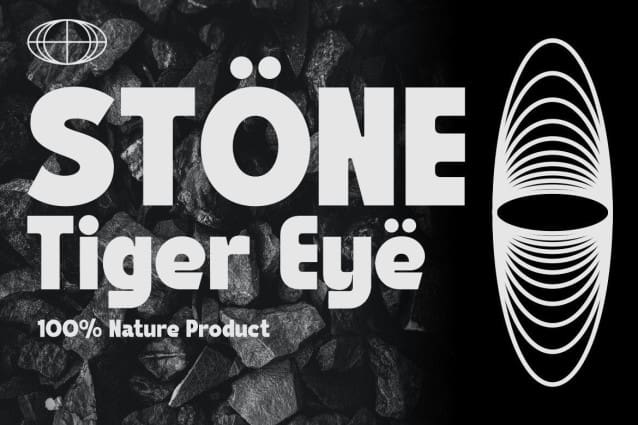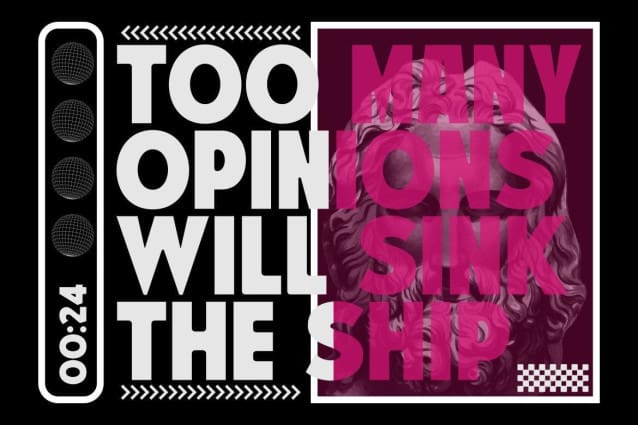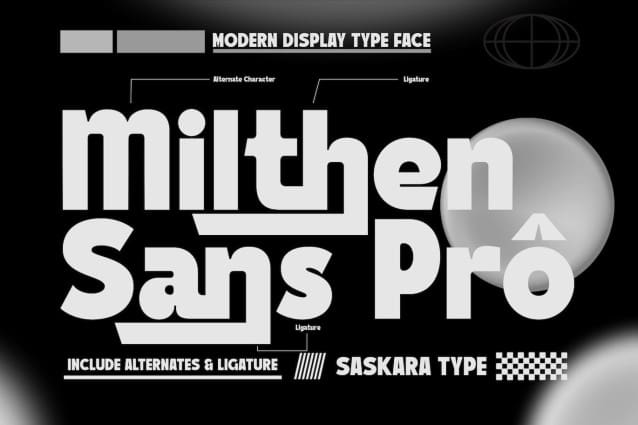
Milthen Sans Pro Font
Milthen Sans Pro Font is a revamped Sanserif font from Milthen Sans to which I added lowercase with a modern, strong and dynamic touch. This font is inspired by the 80s font that is still printed in newspapers. This font is ideal for logo, label, flayer, brochure, signage, pub, illustration design, handmade branding, anything related to modern style,